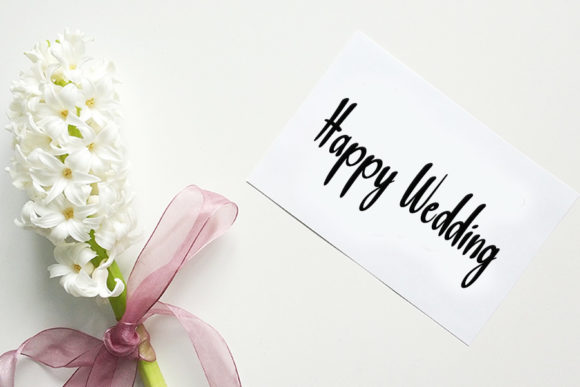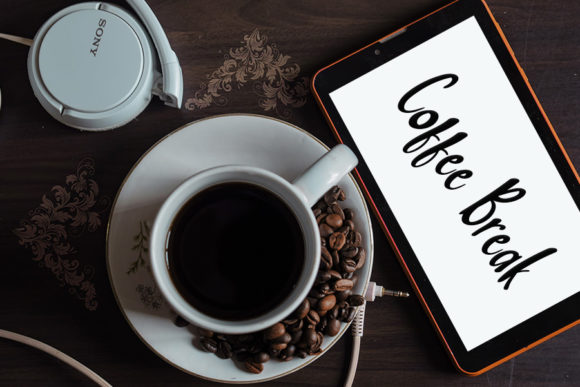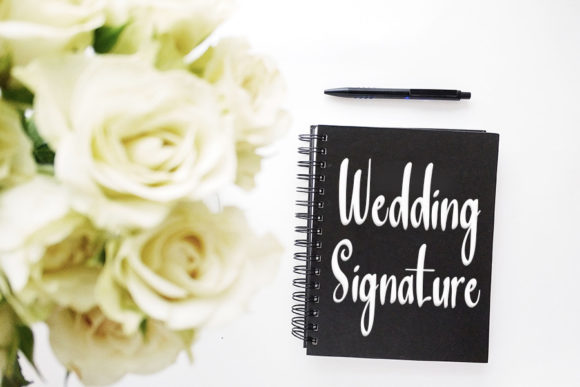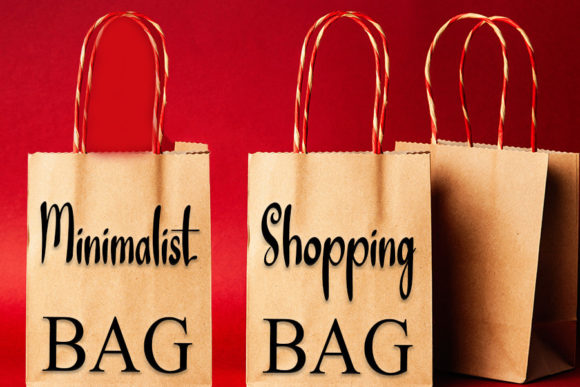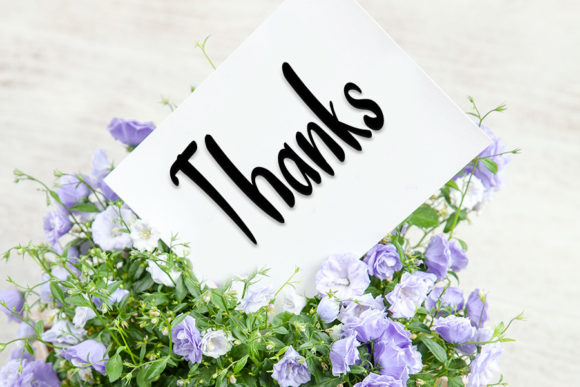
Introduction to Santa’s Signature Font
Have you ever stared at a blank canvas, struggling to find the perfect font to bring your creative project to life? That’s a feeling many designers know all too well. But what if I told you that there’s a font out there that can make all the difference? A font that’s as merry and bright as a winter wonderland, yet as versatile as a summer breeze.
Meet Santa’s Signature Font, the ultimate design resource for anyone looking to add a touch of magic to their work. This casual handwritten font is more than just a pretty face – it’s a high-quality tool that’s designed to elevate your projects to new heights. With its classy calligraphic influences and fresh, contemporary feel, it’s the perfect addition to any design portfolio.
Key Features of Santa’s Signature Font
- Unique and festive design, perfect for creative projects and holiday-themed artwork.
Honest Review: Santa’s Signature Font
As a designer, I’m always on the lookout for high-quality design resources to elevate my creative projects. Santa’s Signature Font caught my eye with its unique, festive flair. I was excited to give it a try and see if it would become a staple in my design library.
- ✨ The font’s playful, whimsical feel is perfect for holiday-themed projects or any design that needs a touch of magic.
- ⚠️ The font’s limited character set may not be suitable for longer blocks of text or complex layouts.
- ⚠️ Some users may find the font’s aesthetic to be too kitschy or over-the-top, which could be a drawback for more serious design projects.
Overall, Santa’s Signature Font is a fun, high-quality addition to any designer’s toolkit. While it may not be suitable for every project, it’s a great choice for holiday-themed designs or any creative project that needs a bit of sparkle.
Santa’s Signature Font
Common Use Cases for Santa’s Signature Font
Santa’s Signature Font is a versatile design resource that can be used in a variety of creative projects, including:
Christmas card designs
Holiday-themed social media posts